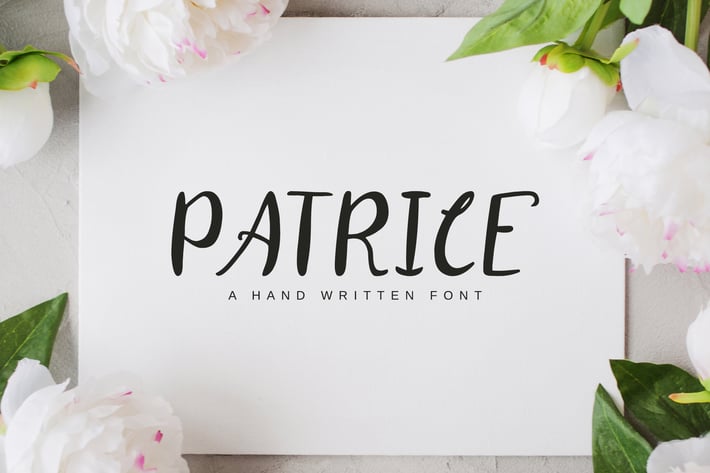
Patrice Script Font
Patrice is a lovely, luxury and cute handmade brush font which makes you fall in love with its incredibly versatile style. It contains uppercase, lowercase, number, punctuation, symbols and support multilingual. Patrice will be perfect for packaging, presentations, logo, headlines, lettering, posters, branding, quotes, titles, magazines headings, web layouts, advertising, invitations, packaging design, books, and nearly any creative design.
Patrice Font Features:
- Uppercase Letters
- Lowercase Letters
- Support Multilingual ( Latin Supplement + Latin Extended A)